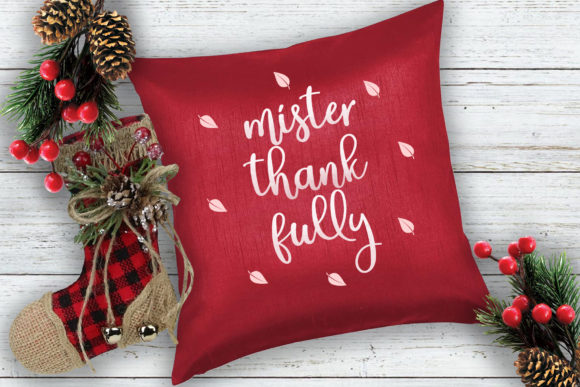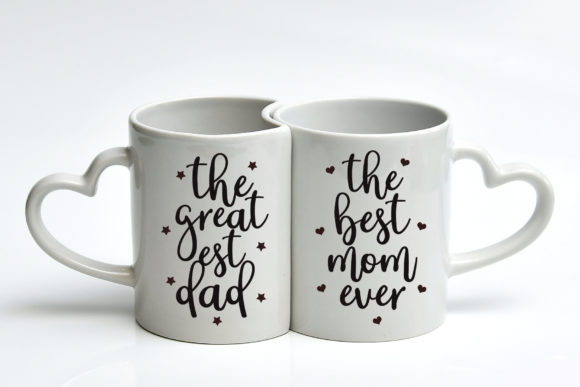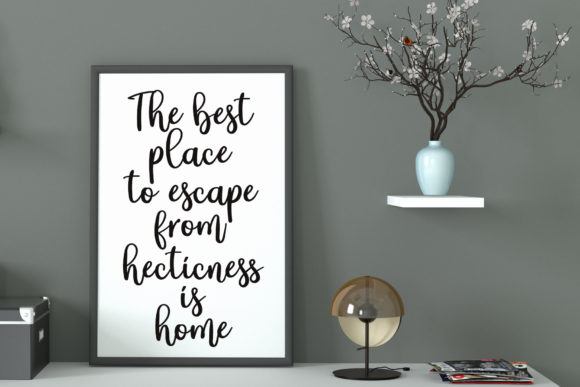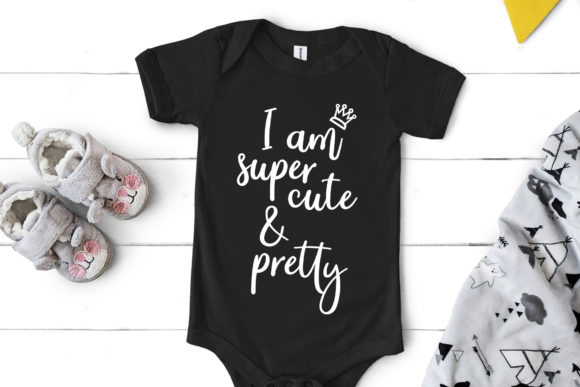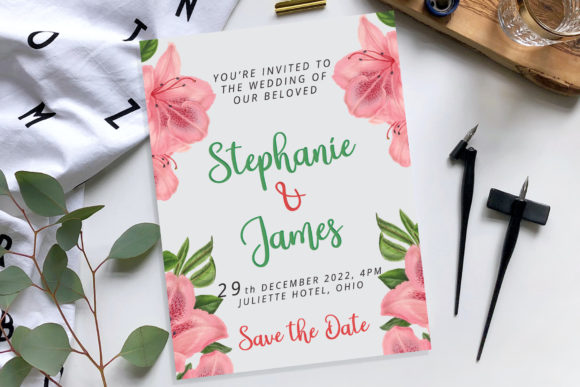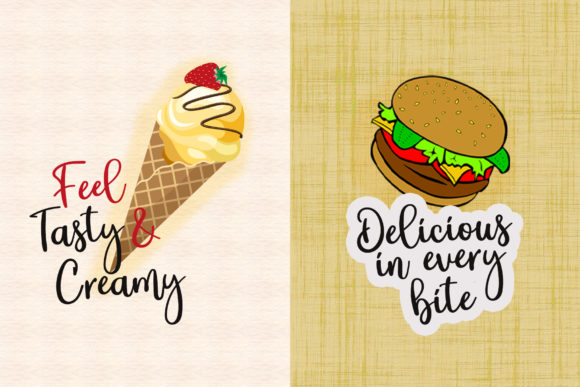
Introduction to Pretty Burger Font Font
Fonts play a crucial role in design, and the Pretty Burger Font font is a typeface that brings both character and versatility to any project. Whether you’re working on a branding project, a website, or a print design, the Pretty Burger Font font offers a unique style that can elevate your work.
Pretty burger is a simple, casual handwritten font.
It looks stunning on thank you cards, quotes, greeting cards, logos, business cards and every other design which needs a handwritten touch .
Key Features of Pretty Burger Font Font
Why Choose Pretty Burger Font Font?
The Pretty Burger Font font is more than just a typeface – it’s a design tool that helps you communicate your message with style and clarity. Its unique character set and versatile design make it suitable for a wide range of applications, from elegant invitations to bold headlines.
With its carefully crafted letterforms and balanced proportions, the Pretty Burger Font font ensures readability and visual appeal across all mediums.
What makes Pretty Burger Font font special?
The Pretty Burger Font font stands out with its unique design, exceptional readability, and versatility across various design applications.